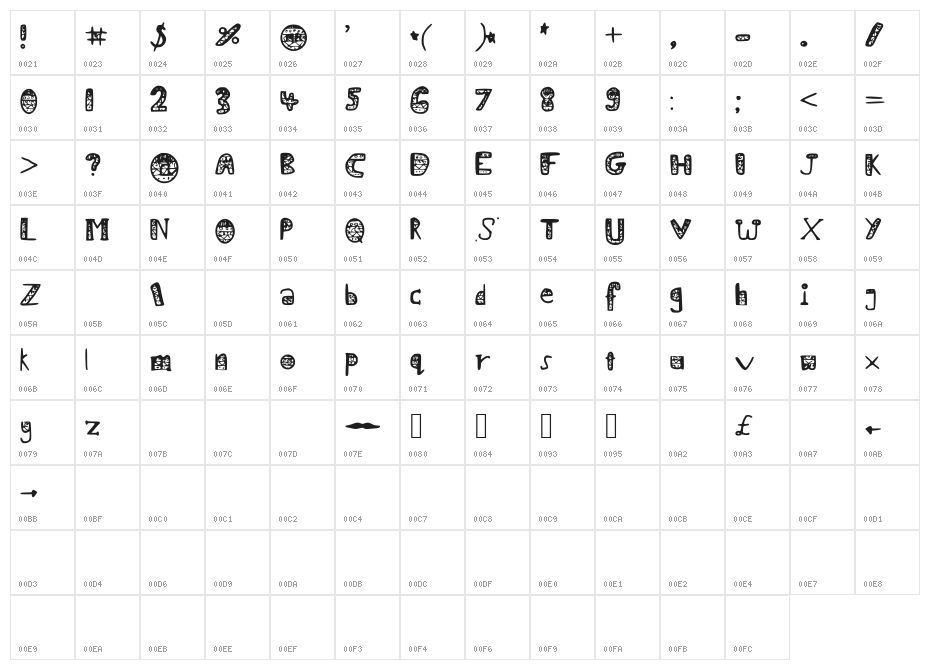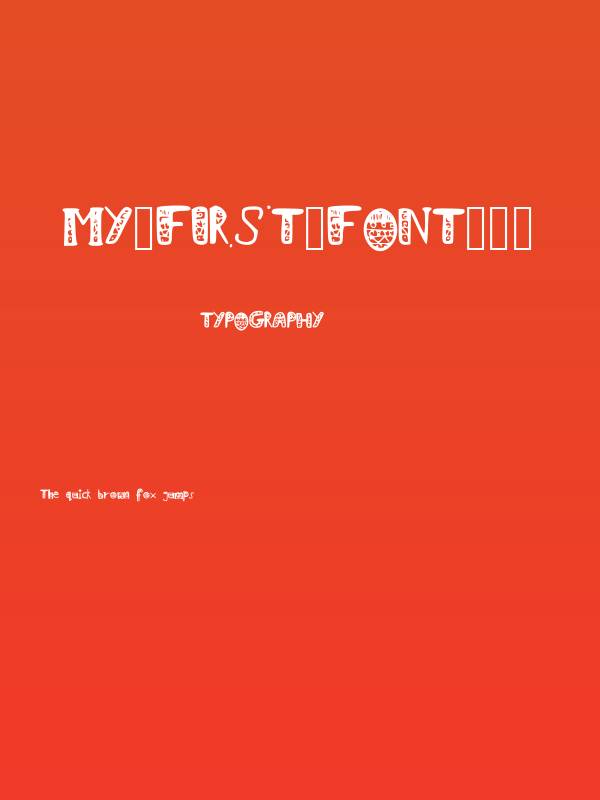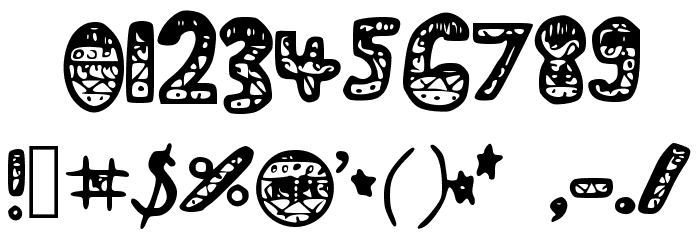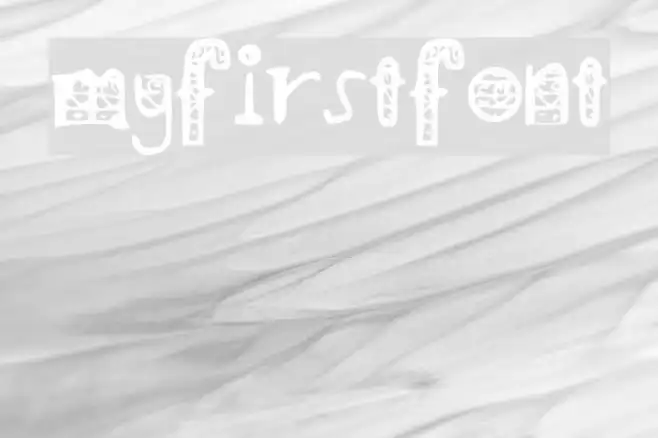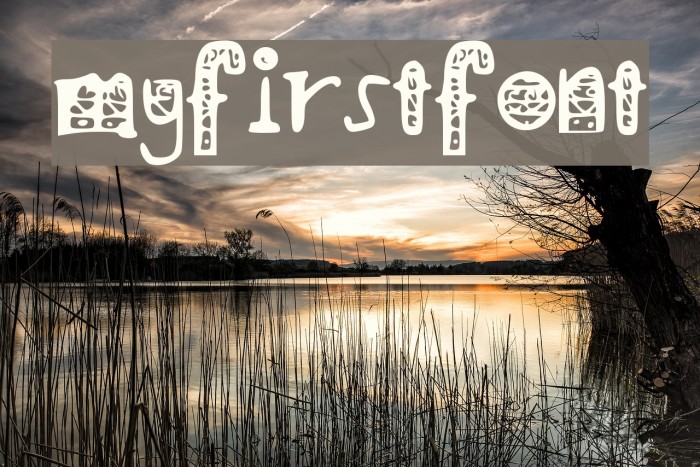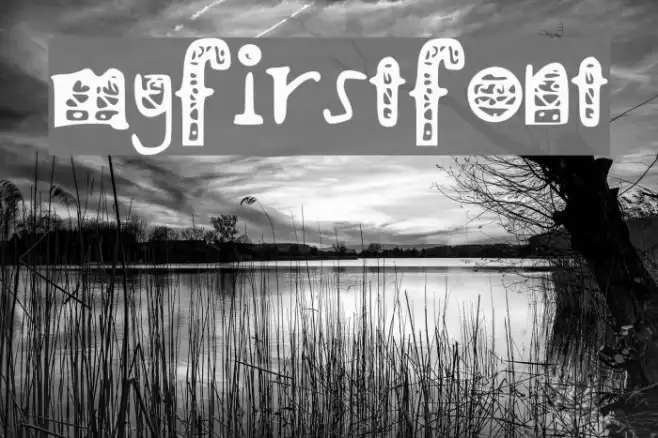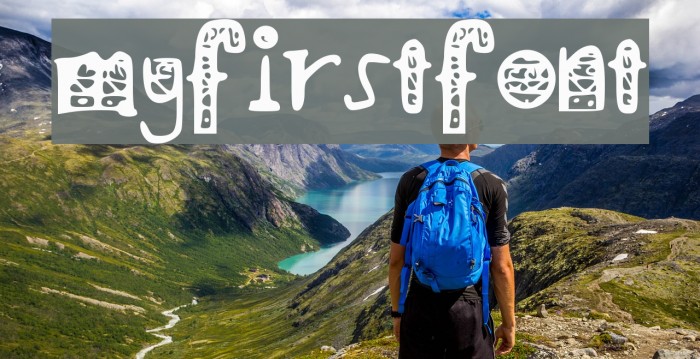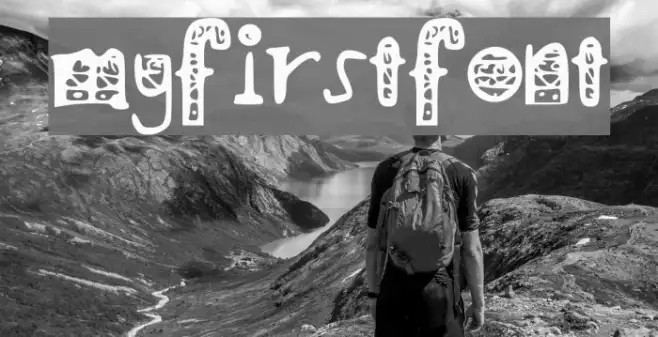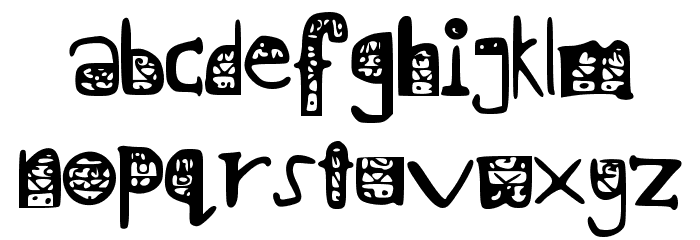
my_first_font___ Font
my_first_font___ Description
This font features a playful and whimsical design with intricate patterns filling each character. The uppercase and lowercase letters are bold and have a hand-drawn appearance, with unique decorative elements inside each letterform. The numbers and special characters follow the same artistic style, making the font highly decorative and visually engaging. The overall look is creative and artistic, suitable for projects that require a fun and lively touch. The font's distinct style makes it stand out, with each character offering a unique visual experience.